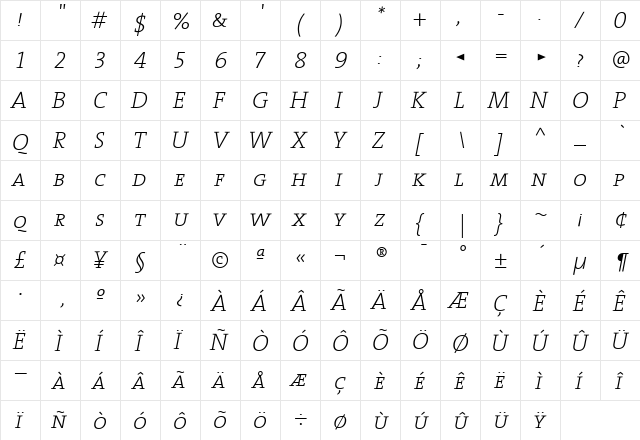
The Serif Extra Light- Regular Font Preview
The Serif Extra Light- Regular
Design Context for The Serif Extra Light- Typeface
The Serif Extra Light- carries the refined structure of traditional serif typography, with bracketed terminals and considered proportions that communicate credibility and craft. The delicate stroke weight brings airiness and refinement to layouts.